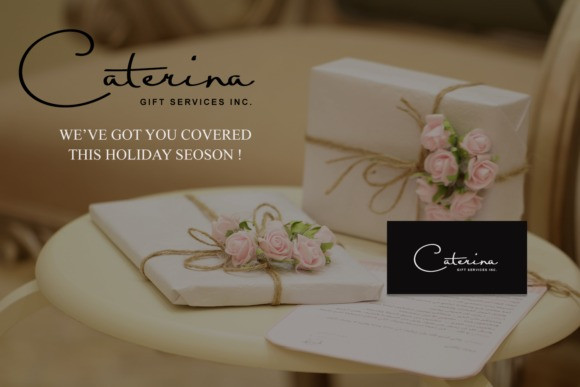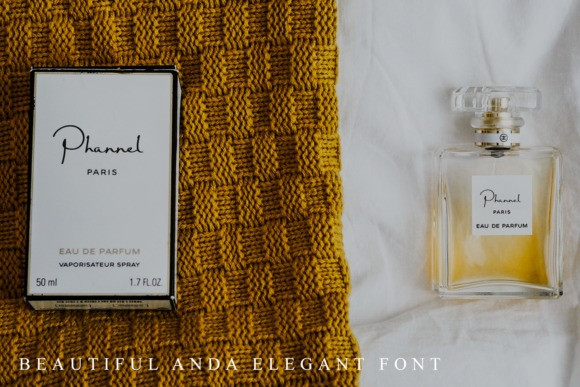
July Font
July Script Font is a very beautiful and attractive script font. Fall in love with its incredibly versatile style and use it to create spectacular designs!